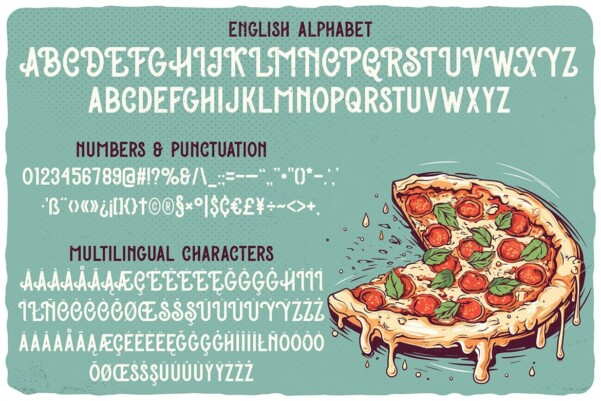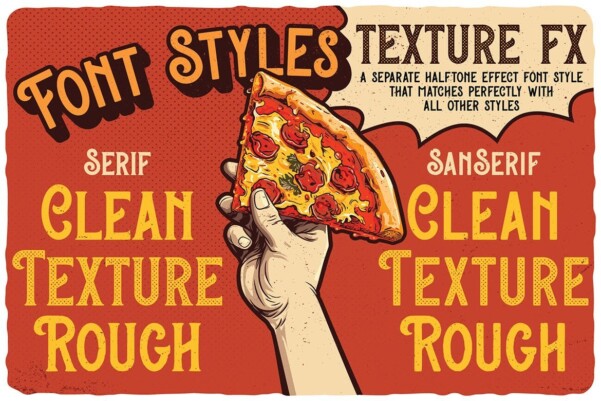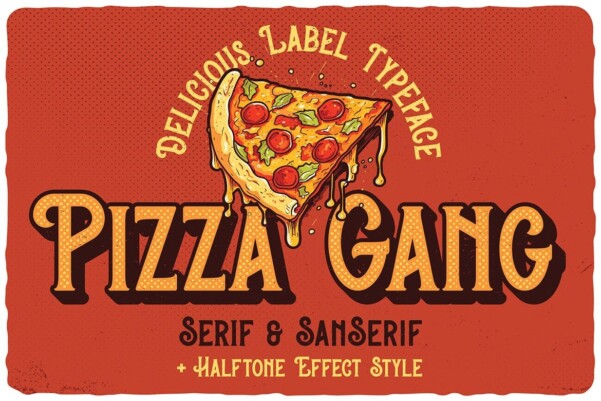
Pizza Gang Font
Pizza Gang Font, unique, vintage, retro, creative and playful serif and sans serif fonts. Comes with multilingual support, ideal for your new Logo or branding project.